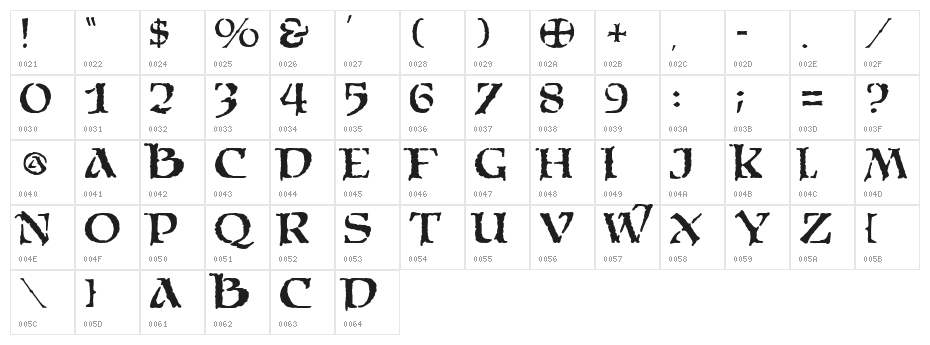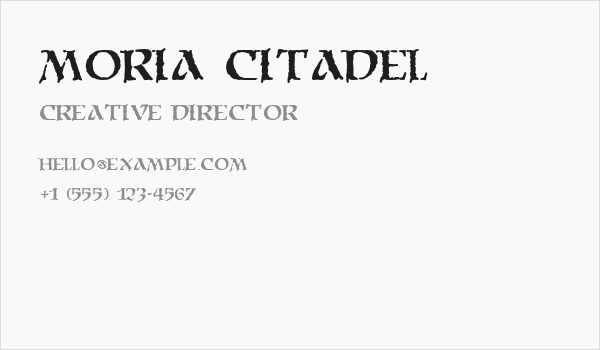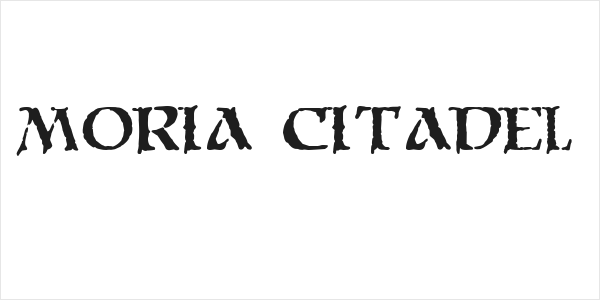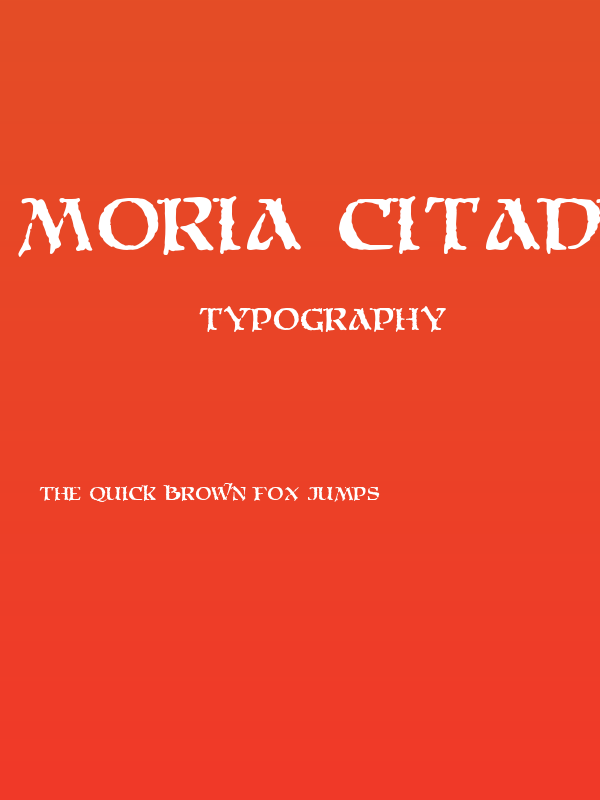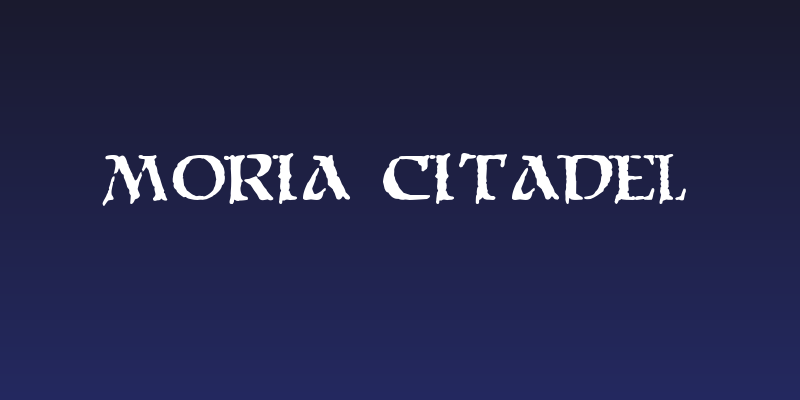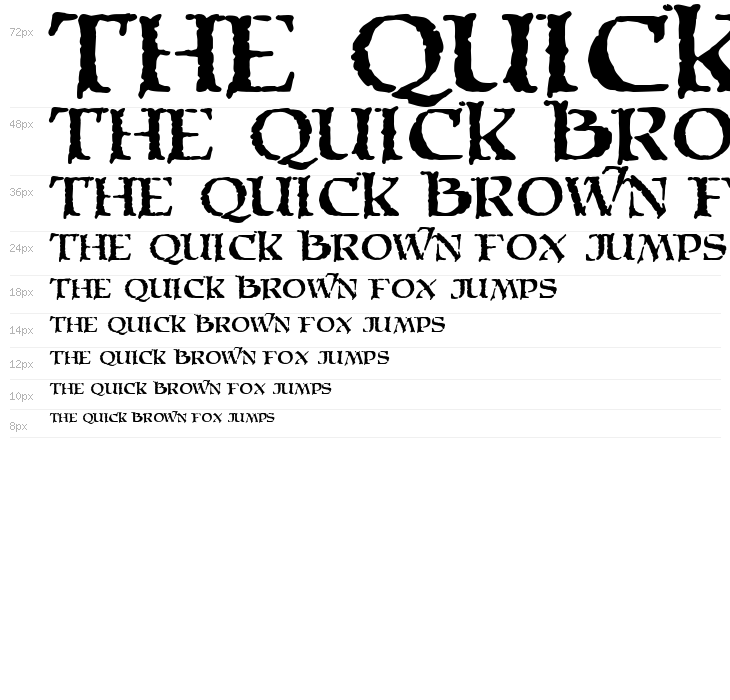
Moria Citadel Font
Moria Citadel Description
This font features a rugged, distressed appearance, reminiscent of ancient stone carvings or weathered manuscripts. The characters are bold and have a chiseled look, with uneven edges and a slightly rough texture that adds to its historical and mystical feel. The uppercase and lowercase letters maintain a consistent style, with the numerals and special characters following suit. The overall design suggests a sense of antiquity and mystery, making it suitable for projects that require a dramatic and impactful typeface.
| Proposed Projects | Ideal for fantasy-themed designs, book covers, movie posters, or any project requiring a dramatic, historical aesthetic. |